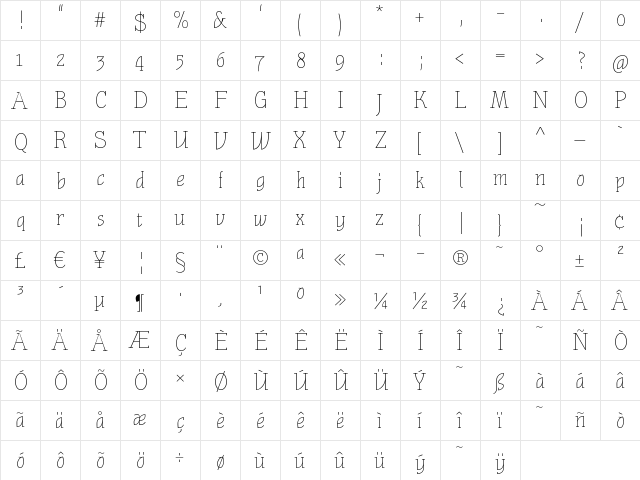
Nautik Light Regular
| Foundry | Henning Skibbe |
| Designer | Henning Skibbe |
Design Context for Nautik Light Typeface
Nautik Light is a composed and adaptable typeface that performs quietly and consistently across a wide range of design contexts. The delicate stroke weight brings airiness and refinement to layouts.